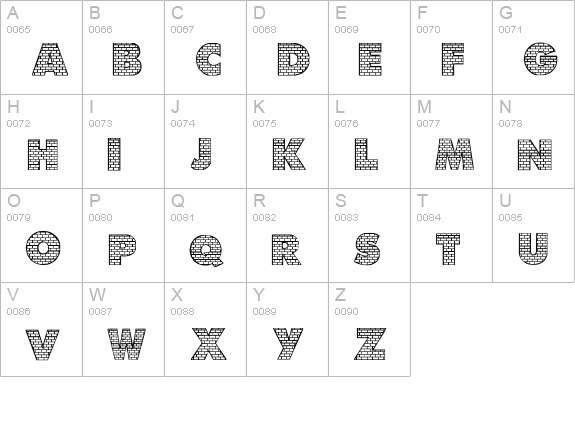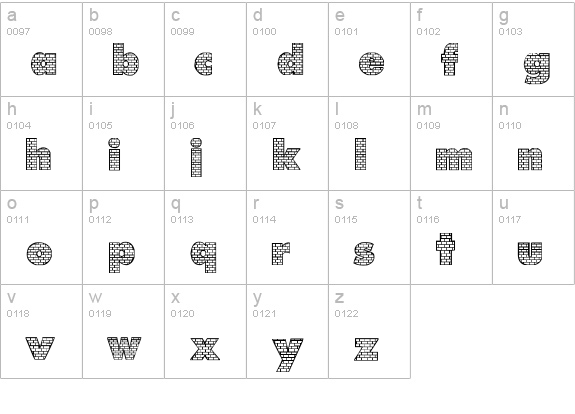
Bricks Font Details
Introducing Bricks font, a versatile and modern typeface that exudes strength and stability. With its bold and geometric design, Bricks font is perfect for creating eye-catching headlines, logos, and branding materials. The clean lines and sharp edges of this font make it an excellent choice for any project that requires a bold statement. Best of all, Bricks font is absolutely free to download at FontsMarket.com! This means you can easily add this stunning font to your design arsenal without breaking the bank. Whether you're a seasoned designer looking for a fresh new font or a beginner exploring typography for the first time, Bricks font is sure to elevate your projects to the next level. Download Bricks font today and unleash your creativity with this powerful and dynamic typeface.